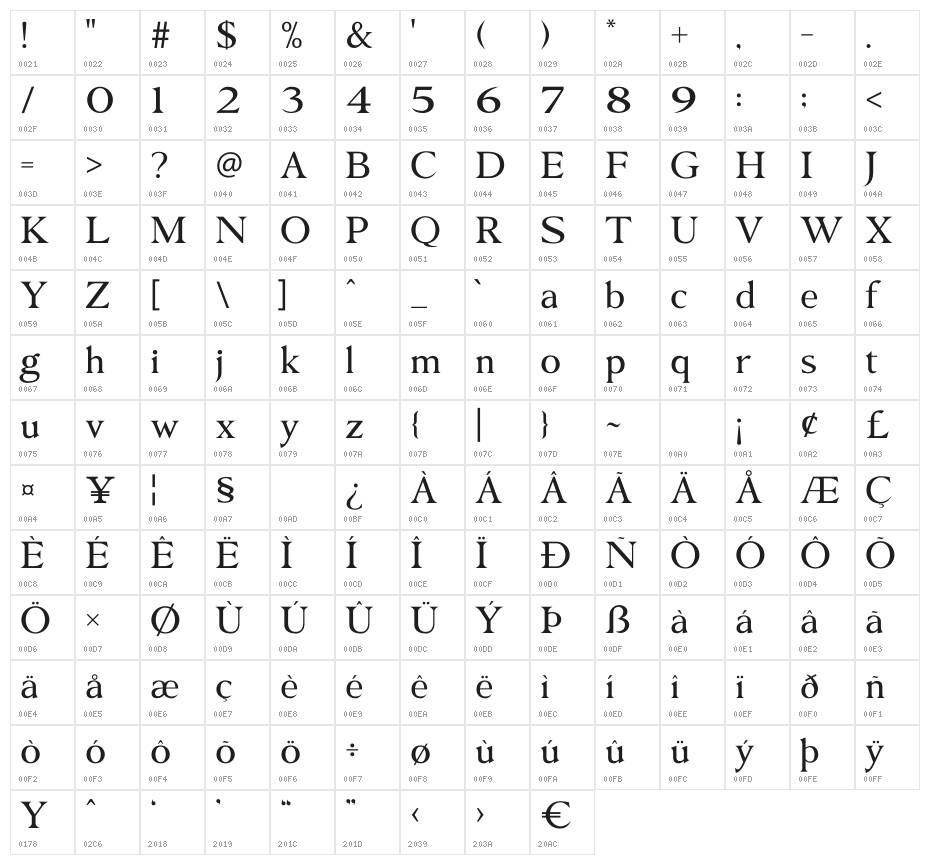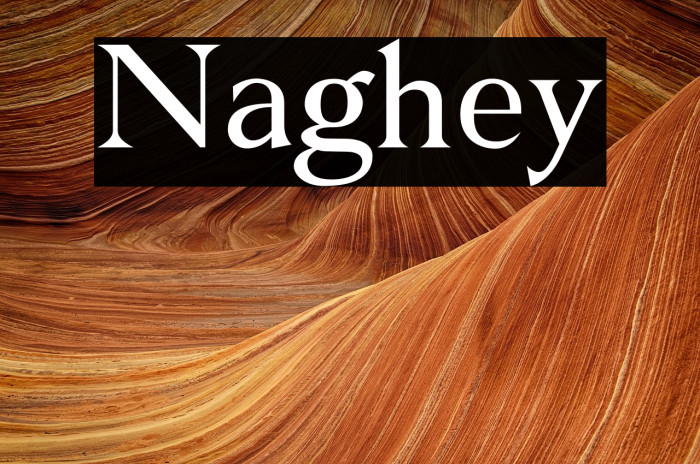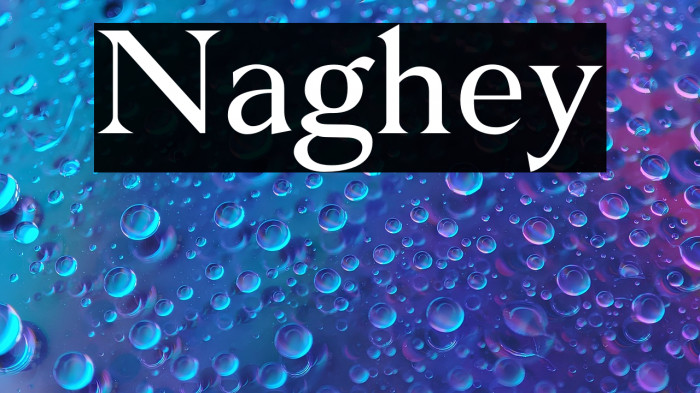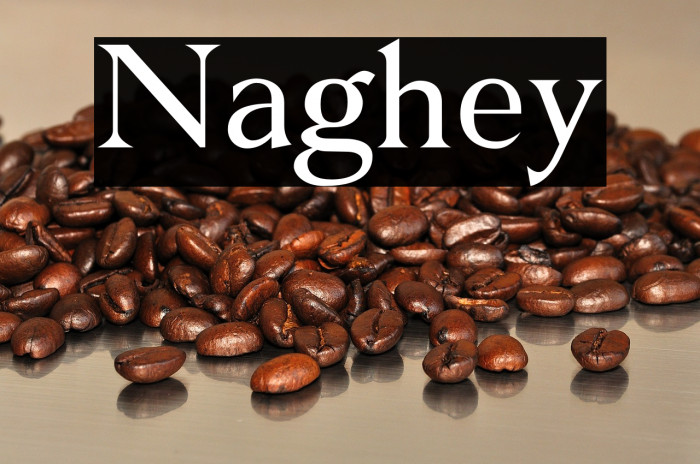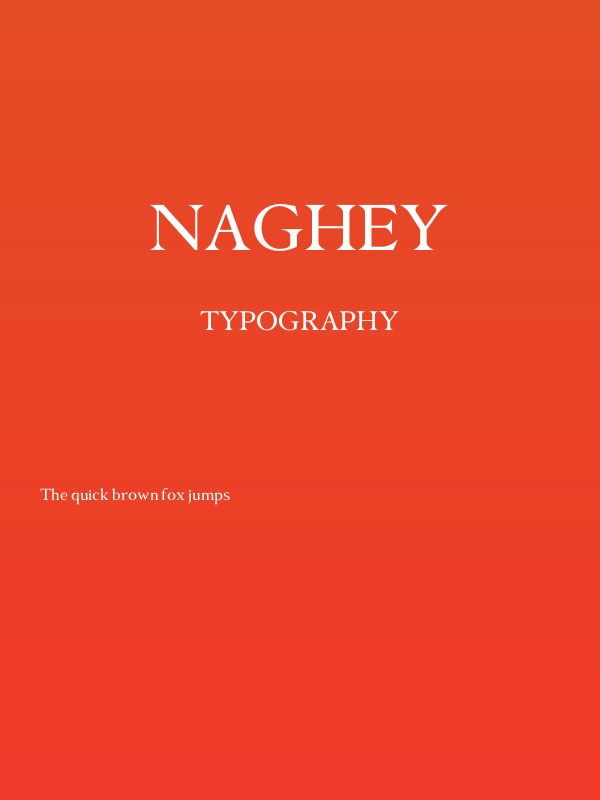
Naghey Font
Naghey Description
This font exhibits a classic serif style with elegant and refined strokes. The serifs are pronounced, adding a touch of sophistication and tradition. The uppercase letters are bold and commanding, while the lowercase letters maintain a graceful balance. The numerals are clear and distinct, ensuring readability. Special characters are designed with the same attention to detail, making them harmonious with the rest of the typeface. The overall design is versatile, suitable for both formal and creative applications. The font's contrast in stroke thickness adds to its legibility and aesthetic appeal.
| Overall Style | Classic |
| Use Case | Headlines, Body text, Logos |
| Proposed Projects | Ideal for editorial design, book covers, formal invitations, and branding projects that require a touch of elegance and tradition. |